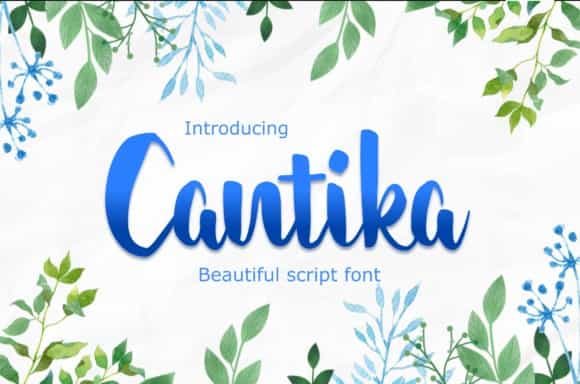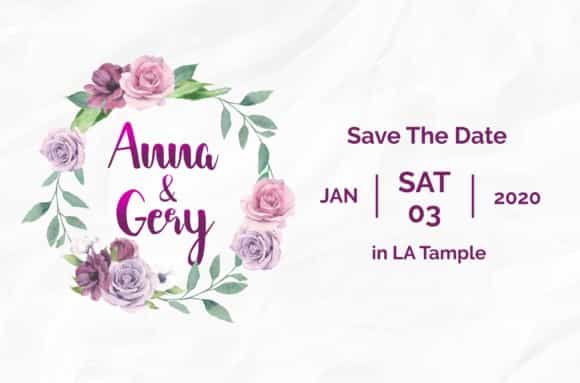
Cantika is one of the hand painted fonts and is defined as bold, fancy and fabulous. Used in different capacities. for instance, titles, labels, newsletters, posters, signatures, logos, correspondence, wedding invitations, letterhead, signage, badges and so on.